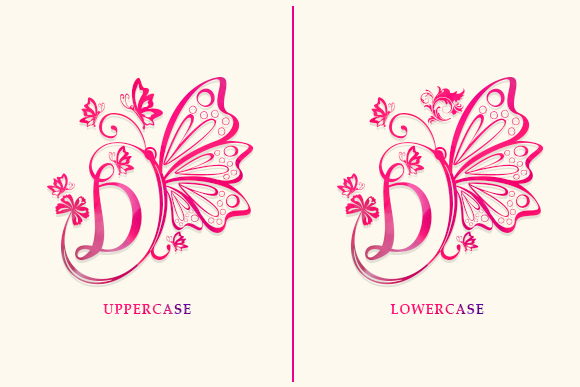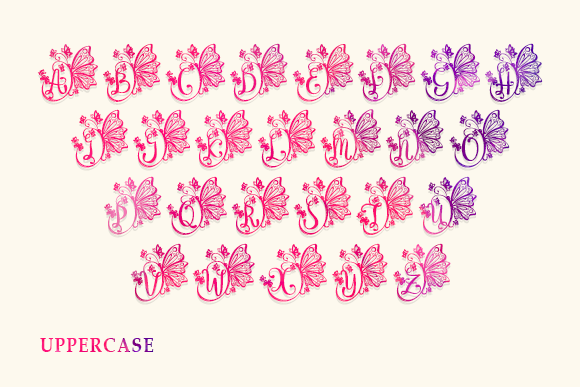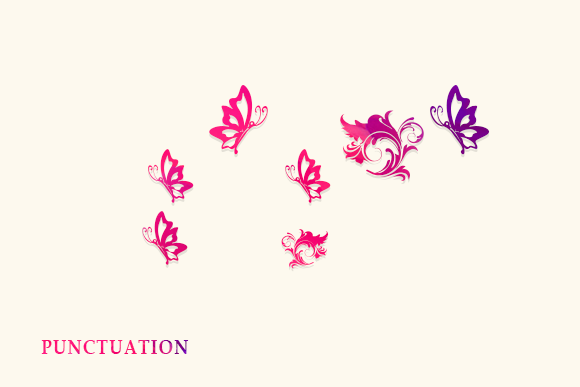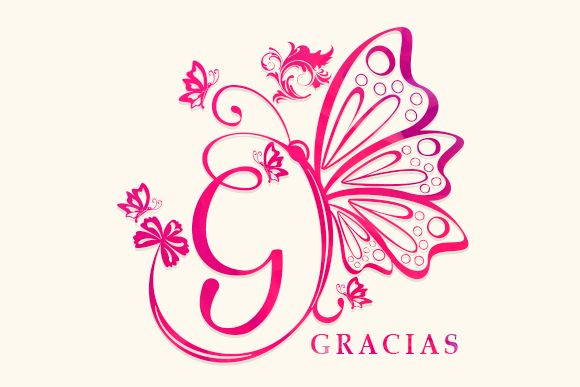
Get Ready to Soar with the Butterfly Monogram Font
Have you ever been browsing through a vintage stationery store, and suddenly, you stumble upon an old-fashioned wedding invitation that makes your heart skip a beat? That’s exactly what happened to me, and it sparked a creative moment that I just couldn’t shake off. I knew right then and there that I wanted to create something similar, something that exuded elegance and whimsy.
That’s when I discovered the Butterfly Monogram Font – a beautiful, ornate font that’s perfect for adding a touch of authenticity to any design project. Whether you’re a wedding planner, a graphic designer, or a social media influencer, this font is sure to be a game-changer. Its lovely ornaments and elegant feel make it a valuable addition to any designer’s toolkit, and its versatility means you can use it to create everything from wedding invitations to social media posts.
Butterfly Monogram Font Key Features
- Font Style: Monogram Font with a whimsical, hand-drawn feel.
- Unique Characteristics: Features intricate, hand-drawn details and a delicate, floral pattern that adds a touch of elegance and sophistication.
- Font Pairing: Perfect for pairing with clean, modern sans-serif fonts to create a beautiful contrast and visual interest.
Butterfly Monogram Font Review
Overall, I think the Butterfly Monogram Font is a beautiful and elegant addition to any design project. ✨ The delicate, hand-drawn feel of the letters gives it a unique and whimsical touch that’s perfect for feminine or romantic designs. ✨ I love how the font can be customized with different colors and patterns to match your brand’s style.
One of the things that stands out about this font is its versatility. ✨ It can be used for a wide range of applications, from wedding invitations to branding materials, and it always looks great. ✨ The font is also highly customizable, with options to change the size, color, and spacing of the letters.
While the Butterfly Monogram Font is a great addition to any design project, there are a few limitations to keep in mind. ⚠️ One of the biggest issues is that the font is not very legible at small sizes. ⚠️ This can make it difficult to read the text, especially in situations where space is limited. ⚠️ Additionally, the font may not be suitable for formal or corporate designs, as it has a more playful and whimsical feel.
- Not very legible at small sizes
- May not be suitable for formal or corporate designs
In terms of overall impression, I would give the Butterfly Monogram Font 4 out of 5 stars. While it has some limitations, I think it’s a beautiful and versatile font that can add a unique touch to any design project. With a little creativity and customization, I’m sure you can create some amazing designs with this font!
Use the Butterfly Monogram Font to add a touch of elegance to your designs, especially for wedding invitations, baby showers, or other special occasions.
Combine the font with other design elements, such as graphics or images, to create a visually appealing design.
Wedding invitations, baby shower invitations, graduation announcements, birthday party invitations, and other special occasion designs.